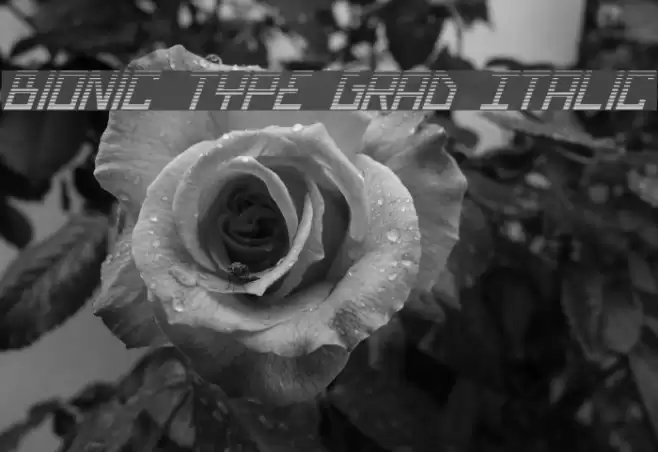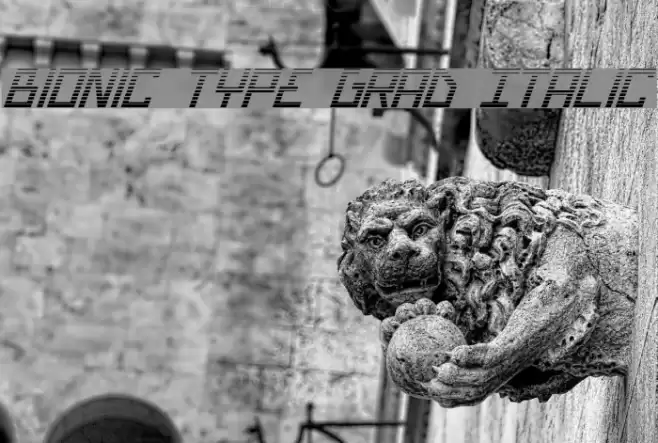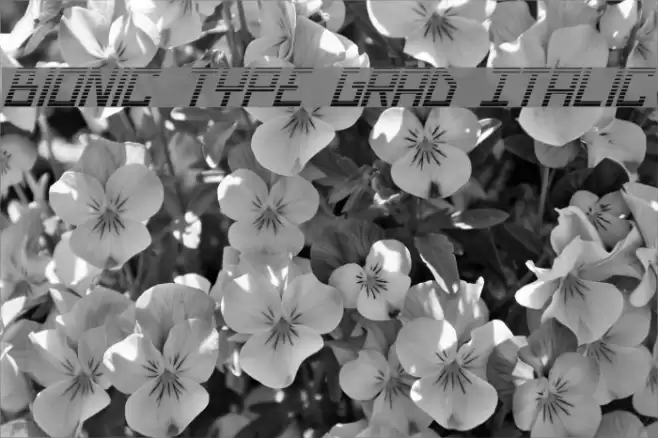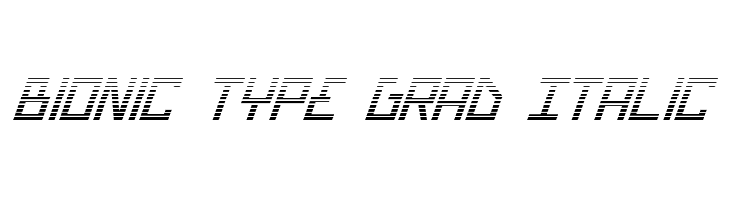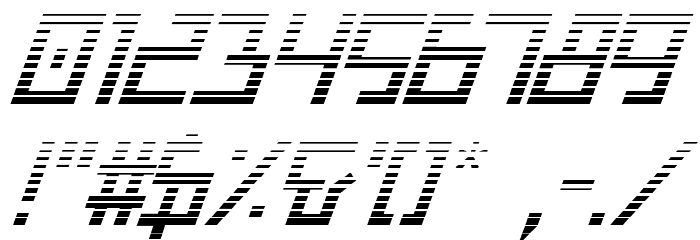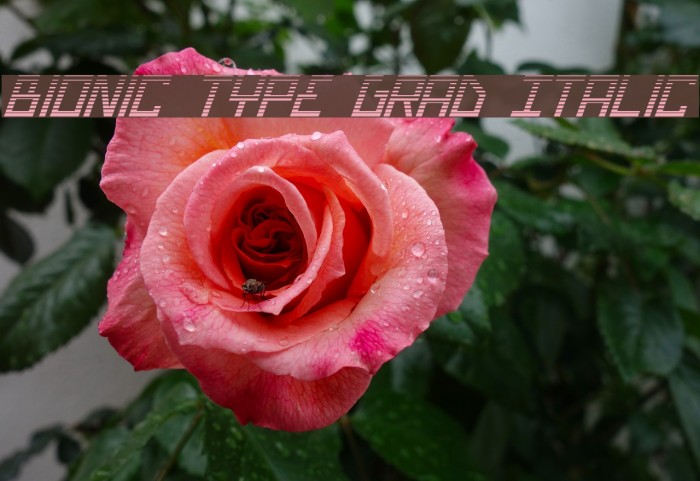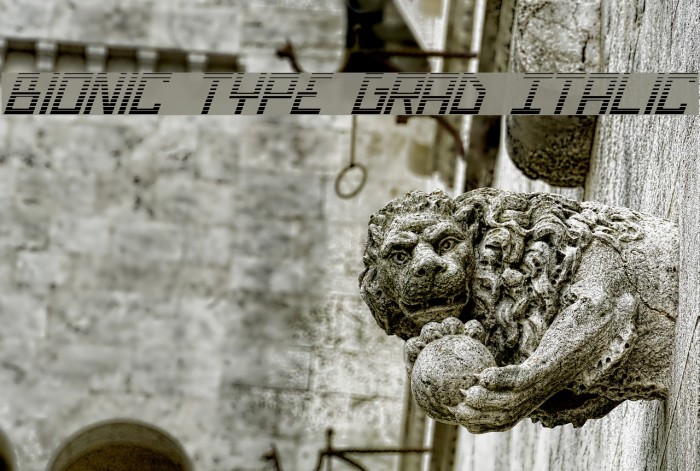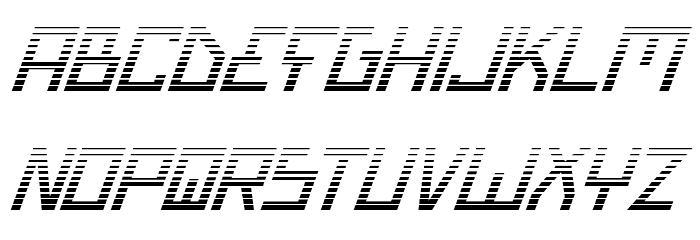
Bionic Type Grad Italic Font
Bionic Type Grad Italic Description
This font features a futuristic, digital aesthetic with a distinct italic slant. The characters are composed of horizontal lines that create a segmented, robotic appearance. Each letter and number is designed with precision, giving a sense of movement and speed. The uppercase and lowercase letters maintain a consistent style, enhancing readability while preserving the unique design. The special characters complement the overall theme, making this font suitable for tech-oriented projects. Its bold presence is ideal for capturing attention in digital and print media.
A futuristic, italic font with a segmented, digital design from Uncategorized fonts.
- Proposed Projects: Ideal for technology branding, sci-fi posters, video game titles, and digital interfaces.